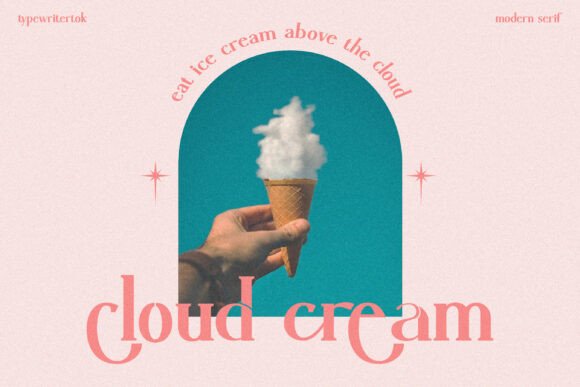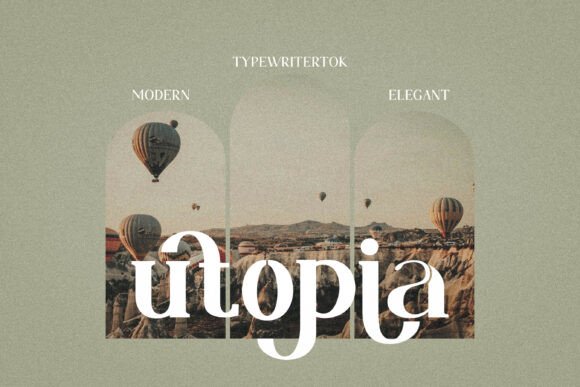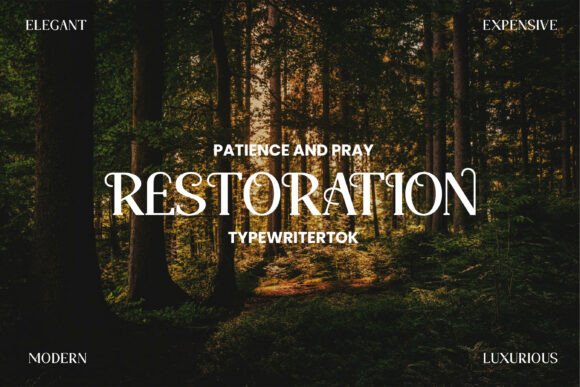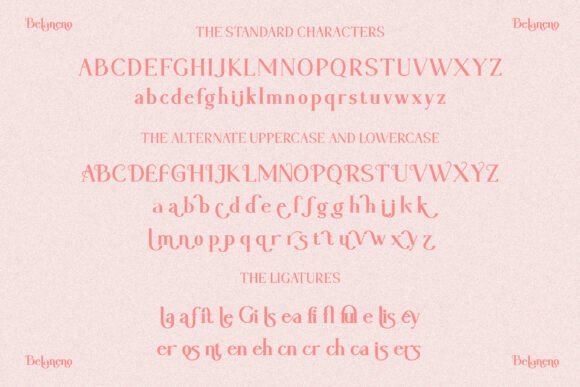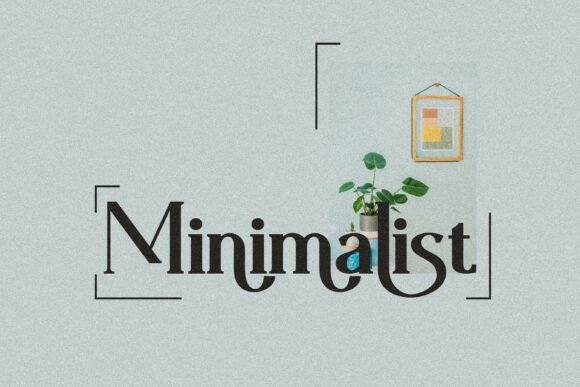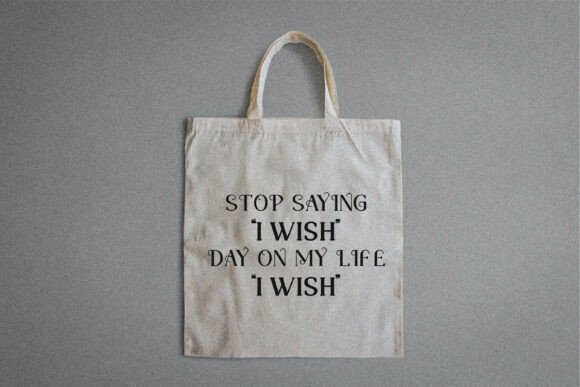
Introducing Belaneno Font: Elevate Your Design with Elegance and Sophistication
In the world of typography, a font can make or break the visual identity of a brand, product, or editorial piece. For designers and crafters seeking a typeface that embodies luxury, refinement, and modernity, Belaneno Font is an exceptional choice. This modern serif font is crafted to exude elegance and sophistication, making it perfect for a wide range of applications, from luxury branding and editorial design to high-end packaging, fashion magazines, invitations, and corporate identities.
The Essence of Belaneno Font
Belaneno Font is characterized by its refined letterforms and balanced proportions. Each character is meticulously designed to convey a sense of luxury and refinement, making it an ideal choice for designers who aim to create high-end visual experiences. The font’s classic serif structure is infused with modern elements, ensuring it remains trendy and relevant in today’s fast-paced design landscape.
Key Features of Belaneno Font
- Refined Curves and Stylish Ligatures: Belaneno boasts elegant curves and stylish ligatures that add a touch of sophistication to any design project.
- High Contrast Strokes: The font features high contrast strokes, which enhance its luxurious feel and make it perfect for applications where visual hierarchy is crucial.
Perfect for Luxury Branding and Editorial Design
Belaneno Font is specifically designed to meet the needs of luxury brands and editorial designers. Its refined aesthetic and elegant appearance make it an excellent choice for:
- Luxury Branding: Create a lasting impression with a font that communicates luxury, quality, and sophistication.
- Editorial Design: Elevate your publications with a typeface that offers clarity, elegance, and a touch of modernity.
- Logo Creation: Use Belaneno to craft memorable logos that stand out and convey a sense of luxury.
- Fashion Magazines: Add a touch of glamour to your fashion editorials and publications.
- Packaging: Ideal for high-end product packaging where visual impact is crucial.
- Wedding Invitations: Create beautiful, elegant invitations that set the tone for special occasions.
Why Choose Belaneno Font?
Belaneno Font is more than just a typeface; it’s a design statement. Here are a few reasons why designers and crafters are gravitating towards Belaneno:
- Timeless Beauty: Belaneno effortlessly blends tradition and trend, offering a timeless beauty that won’t go out of style.
- Versatility: Its elegant and versatile design makes it suitable for a wide range of projects, from digital to print.
Belaneno Font is a masterpiece of modern typography, designed to bring elegance, sophistication, and luxury to your design projects. Whether you’re working on luxury branding, editorial design, high-end packaging, or simply looking for a stylish font for your fashion magazine or wedding invitations, Belaneno is an ideal choice. Its refined curves, stylish ligatures, and high contrast strokes, combined with the convenience of PUA encoding, make Belaneno a versatile and valuable addition to any designer’s toolkit. Elevate your designs with Belaneno Font and make a lasting impression on your audience.